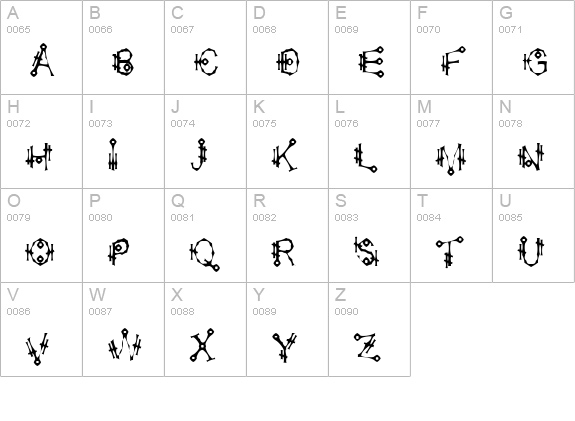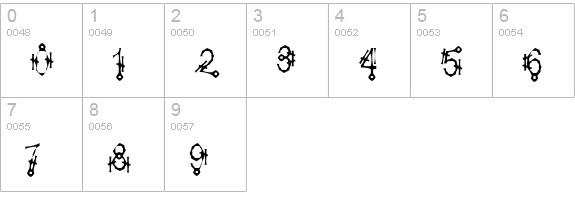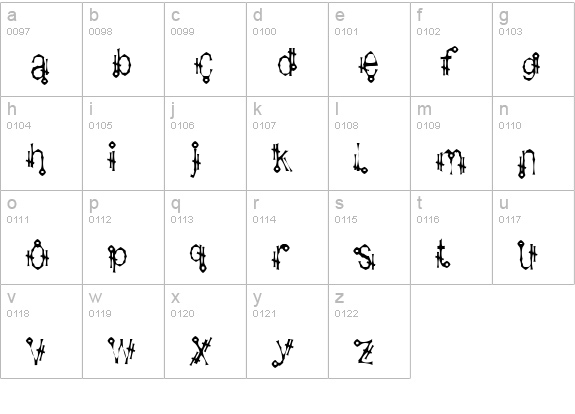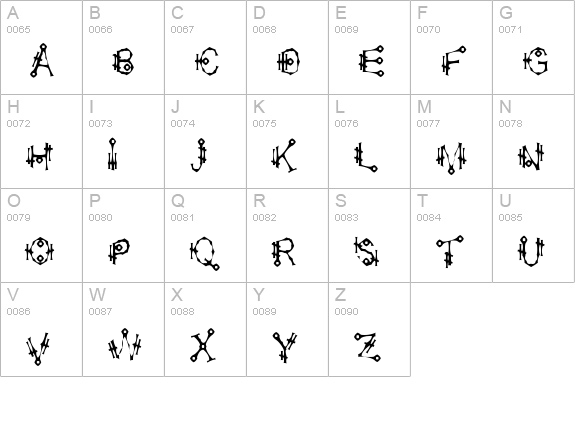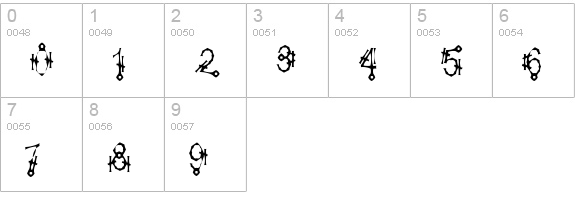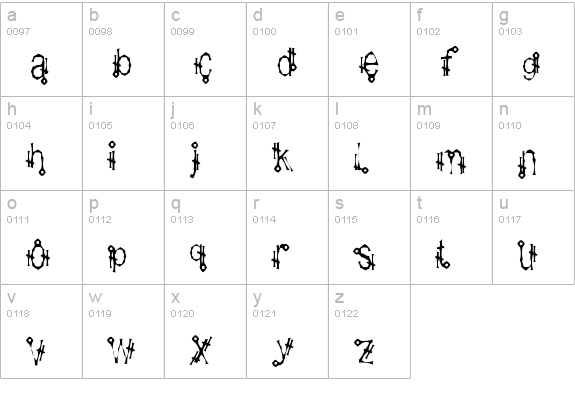
Shamantics Gothick Font Details
Shamantics Gothick font is a mesmerizing and enigmatic typeface that will transport you into the realm of gothic elegance. With its intricate details and dramatic curves, this font captures the essence of the gothic aesthetic, making it perfect for creating stunning designs that evoke a sense of mystery and allure. The unique and distinctive letterforms of Shamantics Gothick font are carefully crafted to bring a touch of darkness and sophistication to any project. Whether you're designing album covers, movie posters, or branding materials, this font will add a touch of Gothic charm that will captivate your audience. What makes Shamantics Gothick font even more enticing is the fact that it is freely available to download at FontsMarket.com. Now, you can easily access and use this exceptional font without any barriers. This means that you can unleash your creativity and experiment with this font to your heart's content, without worrying about any restrictions. So, if you're looking to add a touch of gothic elegance to your designs, look no further than Shamantics Gothick font. Download it for free at FontsMarket.com and let the captivating allure of this font elevate your creations to new heights.